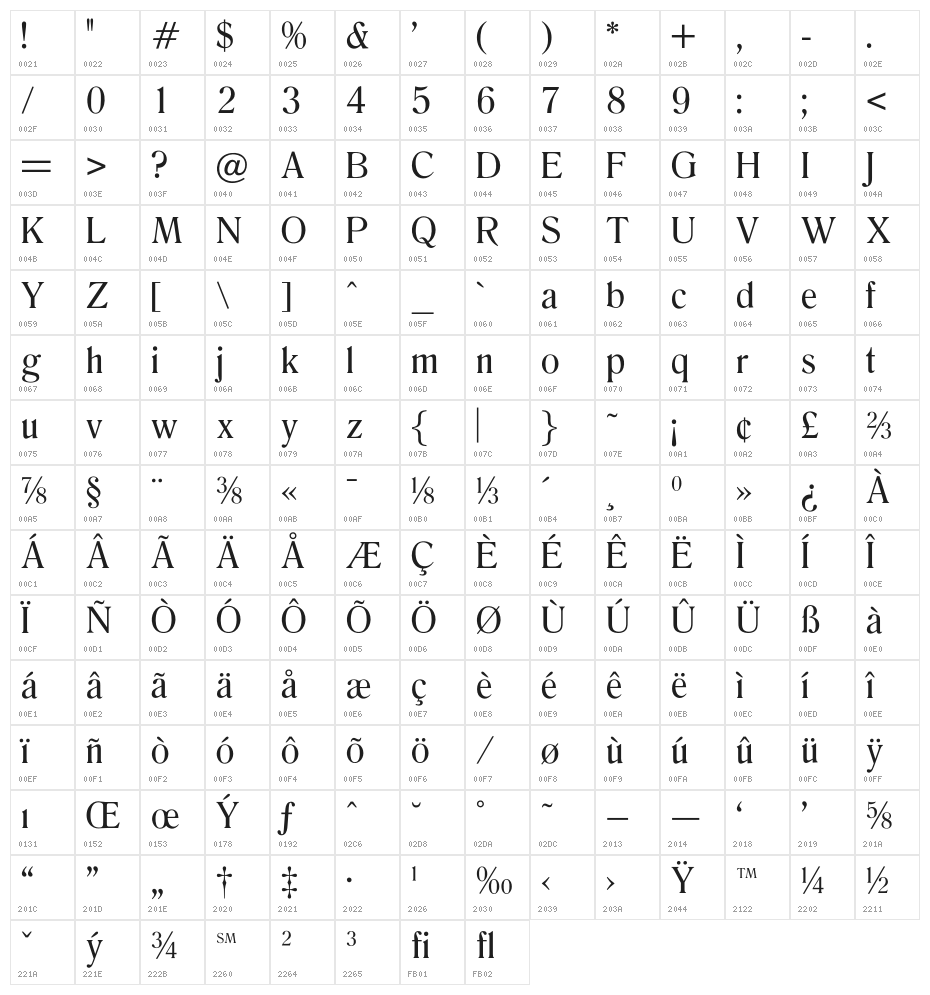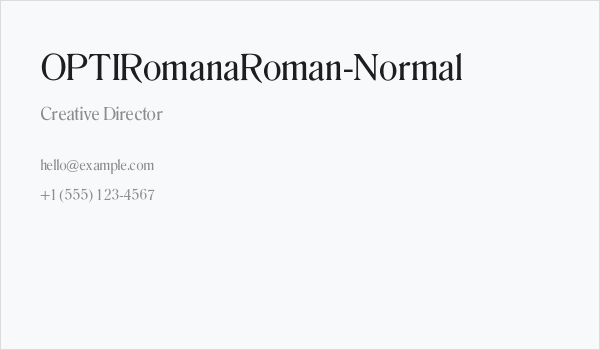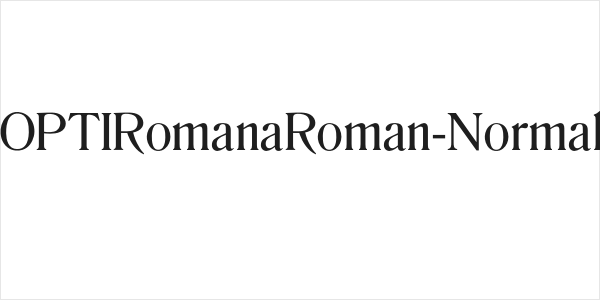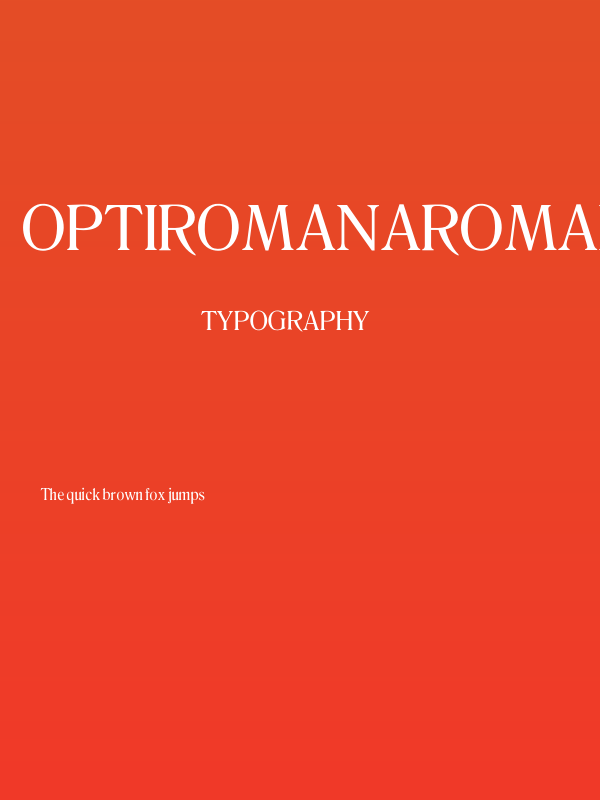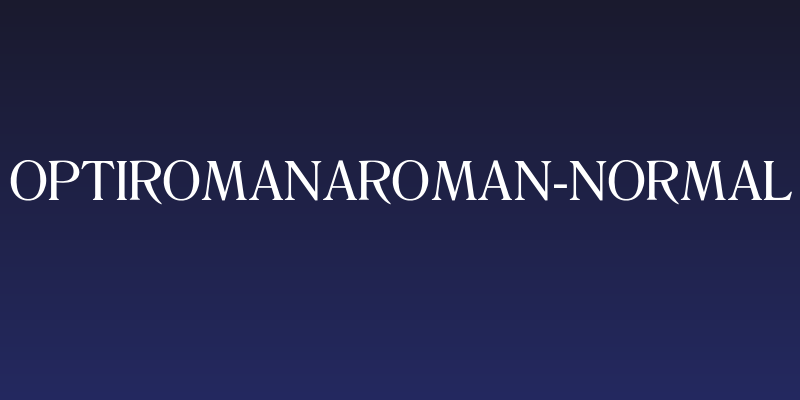
OPTIRomanaRoman-Normal Font
OPTIRomanaRoman-Normal Description
This font exhibits a classic serif style with elegant and refined strokes. The uppercase letters are well-proportioned, featuring sharp serifs that add a touch of sophistication. The lowercase letters maintain a consistent style, with smooth curves and a balanced appearance. The numerals are clear and distinct, making them easy to read. Special characters are designed with the same attention to detail, ensuring a cohesive look across all glyphs. The overall design is timeless, making it suitable for a variety of applications.
| Proposed Projects | Ideal for editorial design, book covers, formal invitations, and branding projects that require a touch of elegance. |